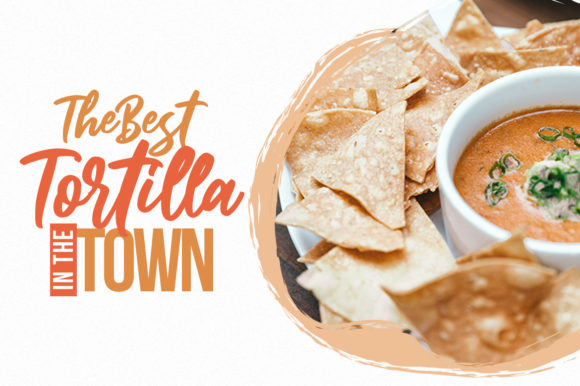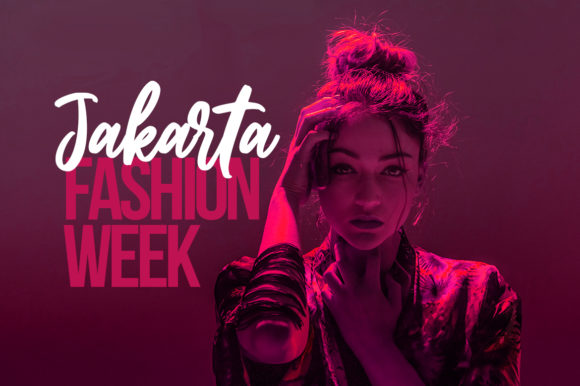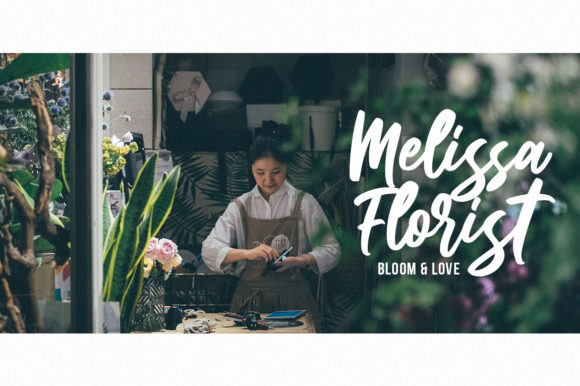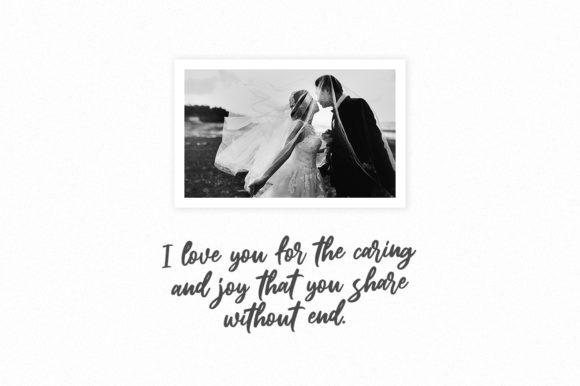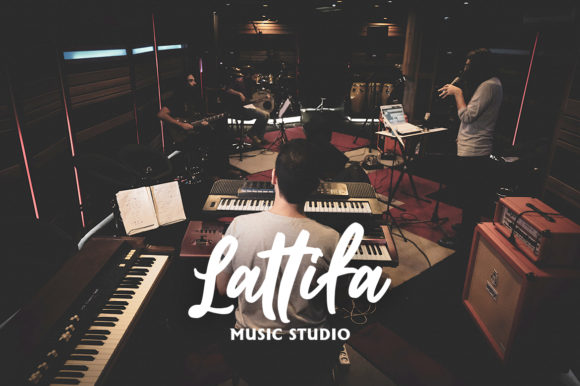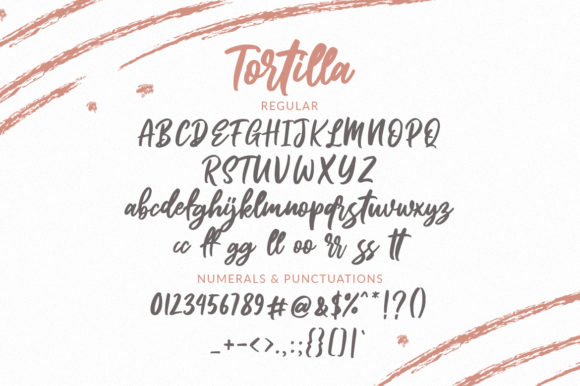
Tortilla Font
About Tortilla Font
Tortilla is a script with unique strokes that makes text look naturally handwritten. Get inspired by its casual appearance!